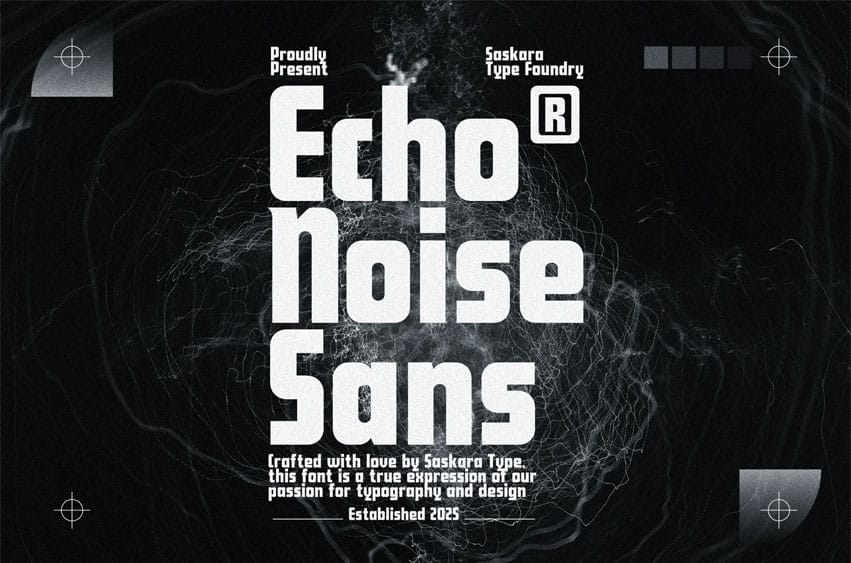
Echo Noise Sans Font experimental sans-serif typeface that blends modern clarity with gritty textures and analog-style distortion. It evokes the visual essence of sound, like echoes bouncing off walls or static waves caught between frequencies. Crafted with geometric foundations, its slightly worn edges and subtle noise elements give it a raw, tactile feel, making it ideal for projects that need to look futuristic yet nostalgic, clean yet chaotic.
Key Features: Sans-serif with a modern, experimental twist, Gritty textures or noise effects for a bold personality, Strong legibility with distinctive visual flair, A perfect balance between retro and future aesthetics. Best Suited For:
1. Music Posters & Album Covers Perfect for genres like synthwave, industrial, punk, techno, or experimental music, where typography becomes an extension of sound and attitude.
2. Alternative Branding & Visual Identity Ideal for fashion brands, creative studios, or niche products that want to break from the mainstream and stand out with a rebellious, artistic tone.
3. Indie Zines & Printed Matter The rough texture and analog-like feel make it great for risograph prints, collage layouts, and underground publications.
4. Film Titles, Games, & Sci-Fi Content Whether it’s a cyberpunk game, a dystopian film, or space-themed content, Echo Noise Sans delivers a sense of raw energy and futuristic decay.
5. Experimental Visual Projects Built for designers and creators who love pushing boundaries and exploring new forms of typographic expression.